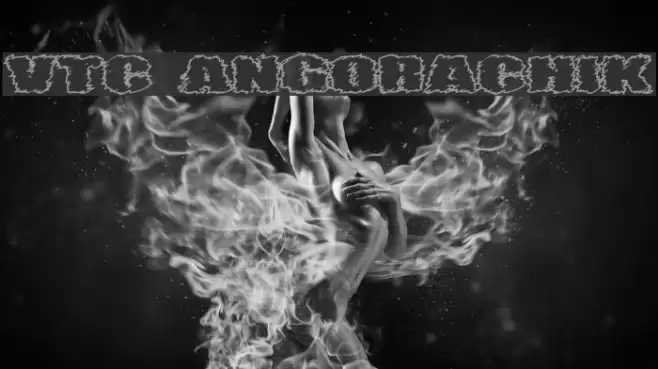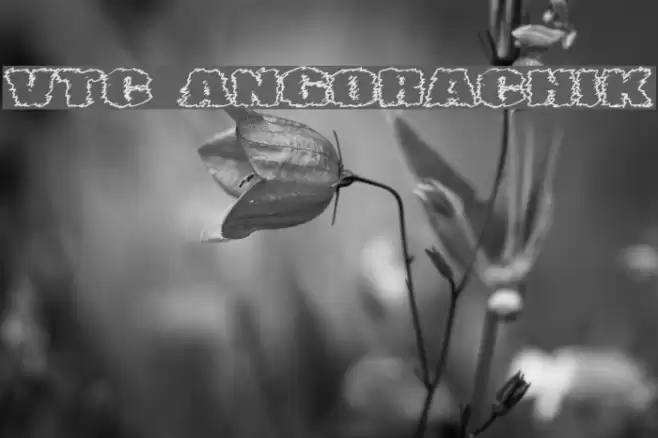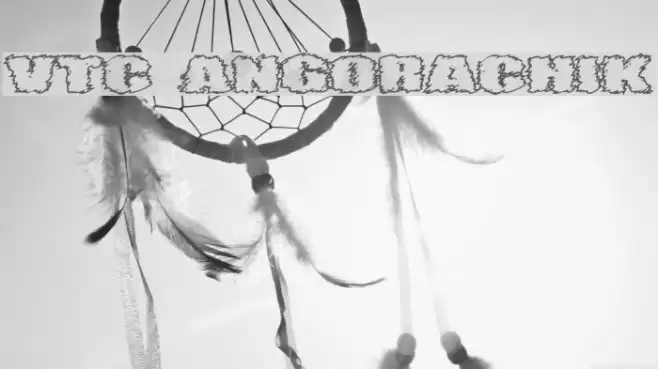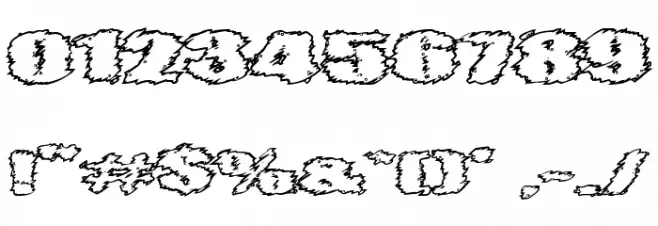
VTC AngoraChik Font
VTC AngoraChik Description
This font features a unique, textured design that resembles fluffy or furry outlines, giving it a playful and whimsical appearance. The characters are bold and have a consistent thickness throughout, with an irregular, jagged edge that adds to its distinctive style. The uppercase and lowercase letters maintain a uniform height, while the numbers and special characters follow the same textured pattern. This font is highly decorative and stands out due to its unconventional and artistic look.
A playful, textured font with a fluffy, jagged outline from Uncategorized fonts.